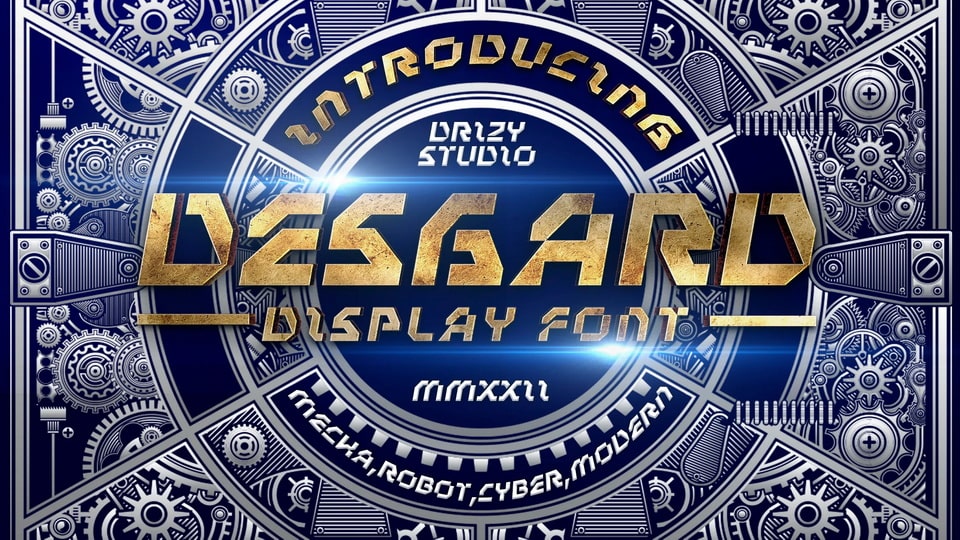
Download Desgard font, a Robot Cyber typeface offering all the styles you need for your projects. With its futuristic look Desgard font is best for technology and gaming projects, sci-fi designs, web and display use.
Designer: Drizy Studio